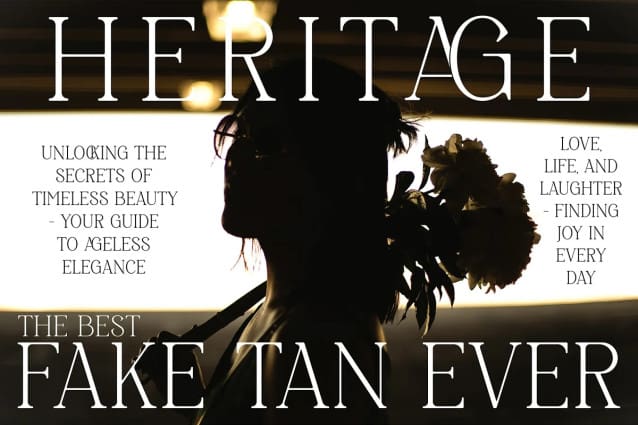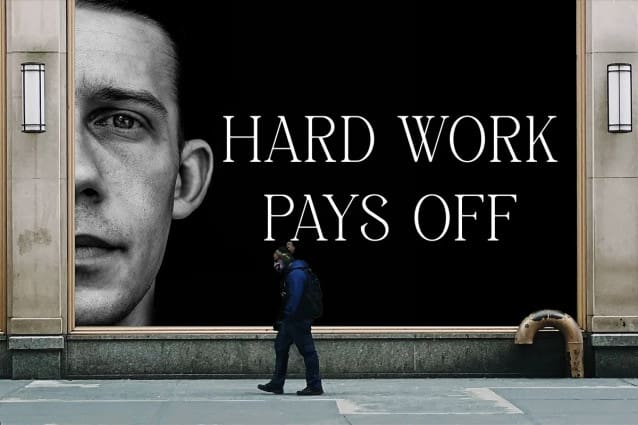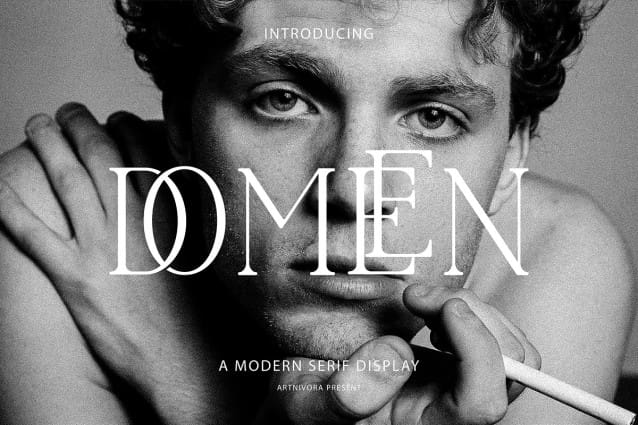
Domeen Font
Domeen Font, a simple and serif font. So perfect for you who needs a typeface for logo designs, magazine, social media, brochure, and many more.